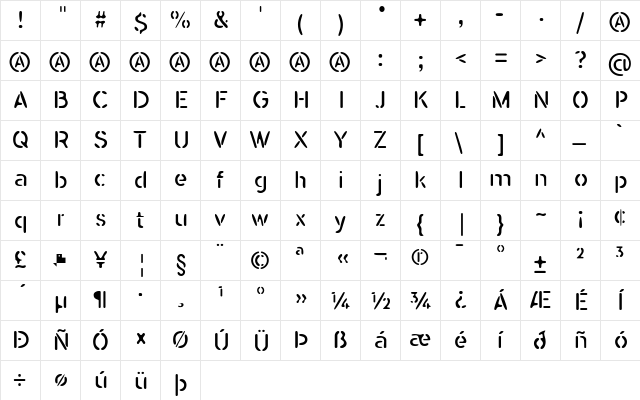
SEISDEDOS DEAD Regular
| Foundry | deFharo |
| Designer | Fernando Haro |
Design Context for SEISDEDOS DEAD Typeface
SEISDEDOS DEAD is a composed and adaptable typeface that performs quietly and consistently across a wide range of design contexts.